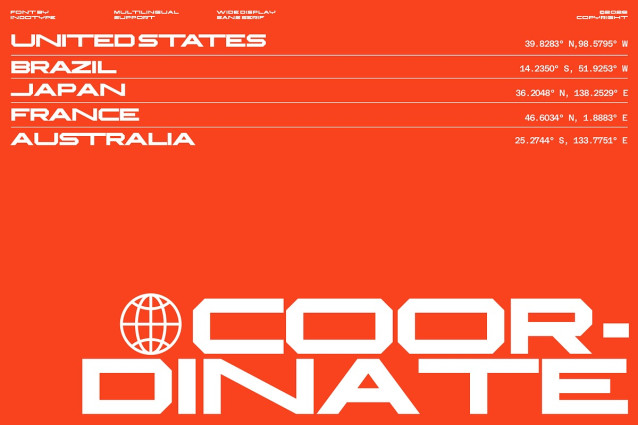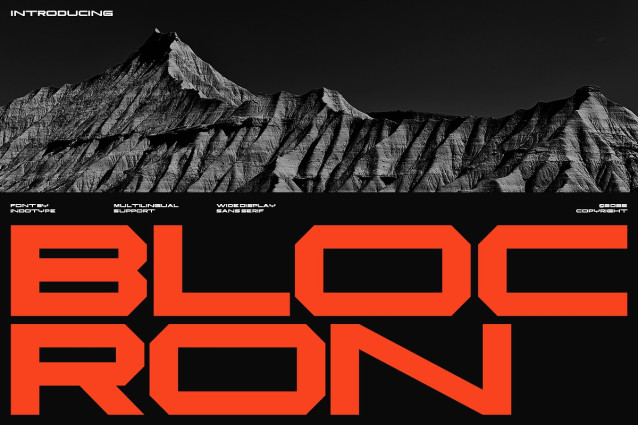
IT Blocron Font
IT Blocron Font is an ultra-bold, wide display sans-serif typeface built for maximum presence and modern impact. Characterized by its expansive letterforms, low stroke contrast, and geometric solidity, Blocron commands attention and fills space with confident authority. Its wide stance and substantial weight create a powerful, grounded aesthetic that feels both contemporary and monolithic. This font is engineered for headlines that need to dominate, logos that demand recognition, and branding that requires a strong, unforgettable footprint. Perfect for bold editorial layouts, tech and automotive branding, poster design, and any application where typography must be a primary visual force. Blocron is not just wide—it’s an immovable statement in modern design.